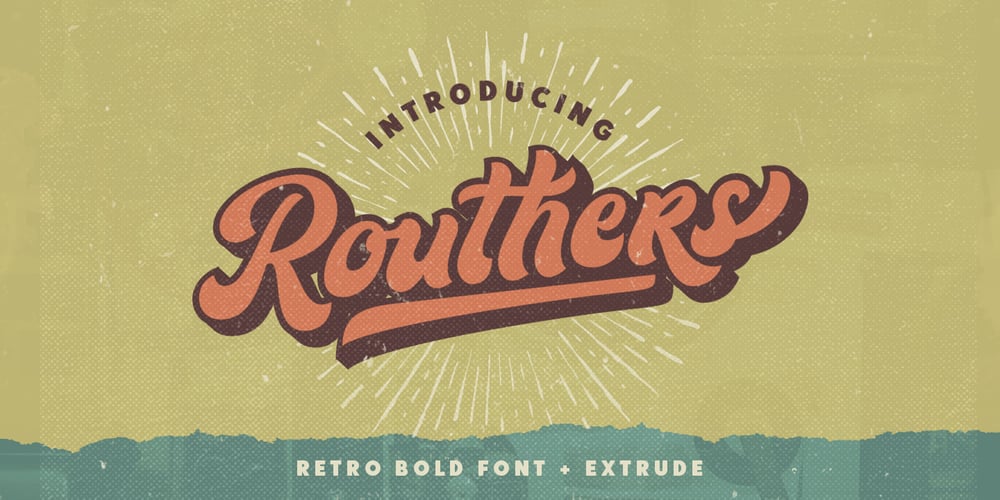
Routhers Font Family was designed by Sarid Ezra and published by Sarid Ezra. Routhers contains 2 styles and family package options. Routhers Retro is a retro bold font that contain Uppercase, Lowercase, Numerals, Accents, Punctuation, 4 set alternates, Ligatures, Swash, and also Underline. You can use to make a logo for branding, best for apparel design, and quotes. This font also already PUA Encoded.What Will You Get: OpenType feature, including 5 Set Alternates, Ligatures, End Swash, and Underlines. PUA Encoded Foreign Languages Support: ÀÁÂÃÄÅÇÈÉÊËÌÍÎÏÐÑÒÓÔÕÖØÙÚÛÜÝßàáâãäåæçèéêëìíîïðñòóôõöøùúûüýÿ PS: Type underscore + number (from 1 to 5). Or copy Rout_5hers in preview bellow..For another questions, please send a mail to saridezra@gmail.com. Thank You!